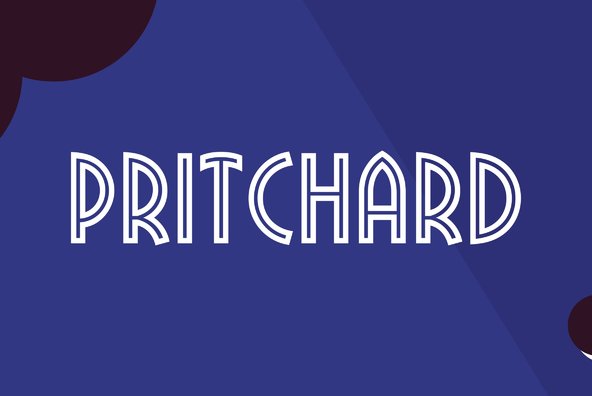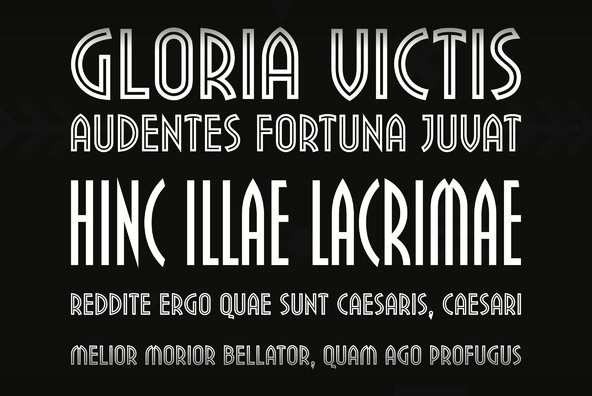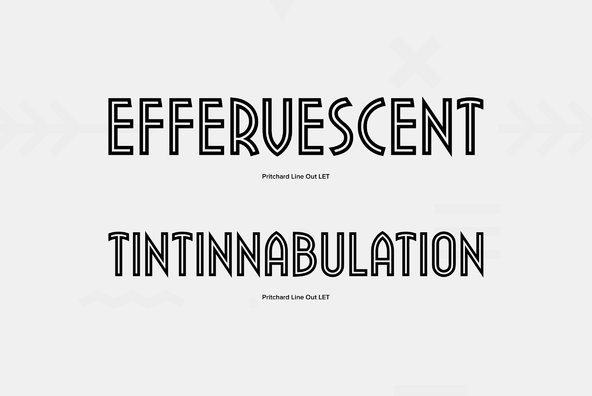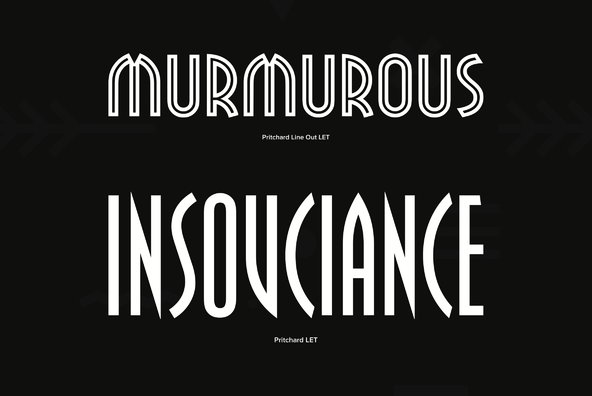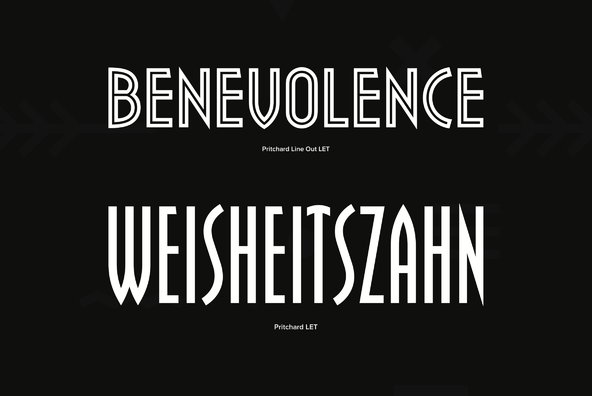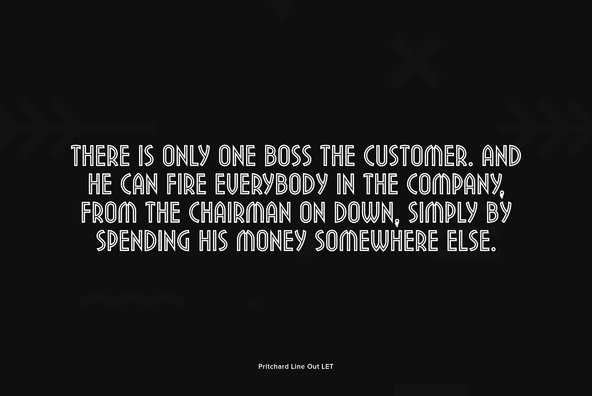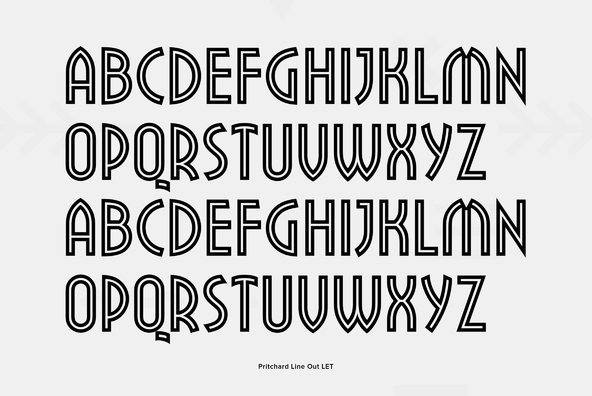
This all capital, condensed sans serif typeface was inspired by the strong geometric styles of the 1920's Soviet Constructivist movement that are currently enjoying a big revival.
This all capital, condensed sans serif typeface was inspired by the strong geometric styles of the 1920's Soviet Constructivist movement that are currently enjoying a big revival. Although Pritchard is condensed and features unusual letterforms, it is very readable and effective in large display sizes. Created by prominent British designer Martin Wait.